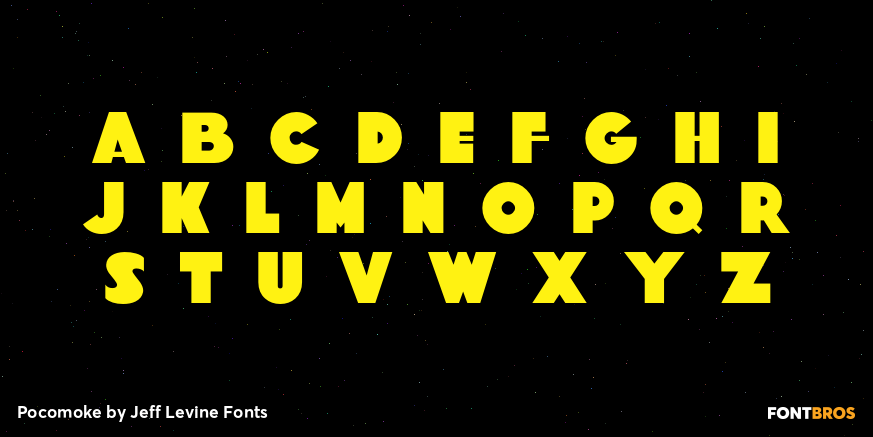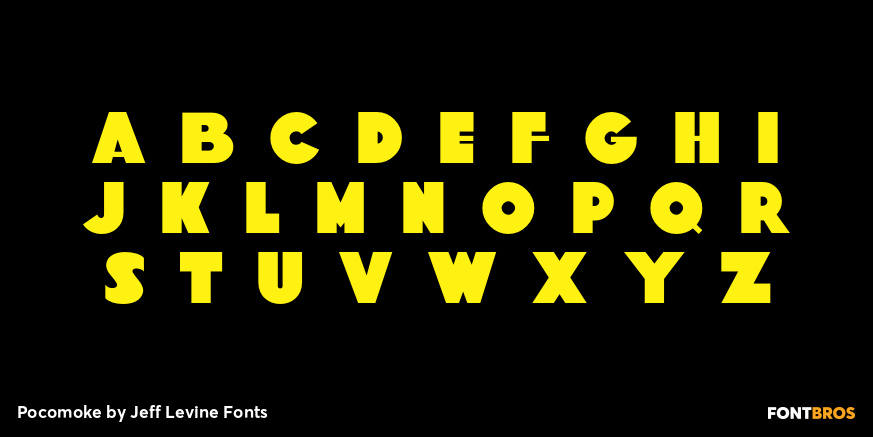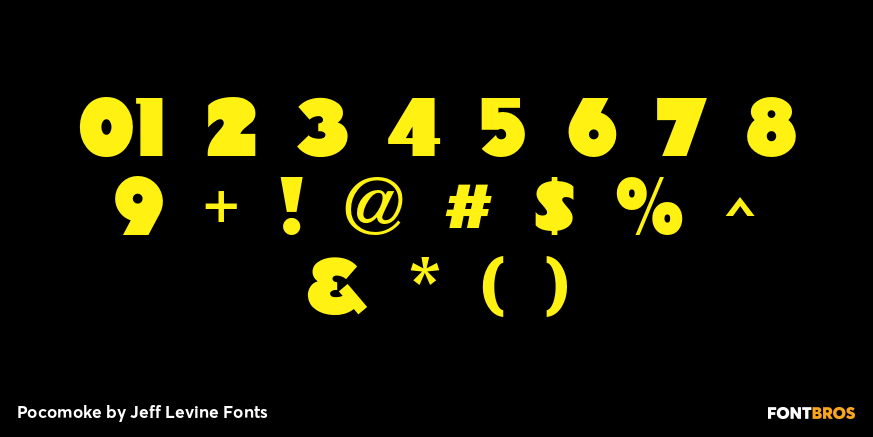
Pocomoke
Two pieces of vintage sheet music ('Honeymoon Hotel' and 'By a Waterfall') from Warner Brothers' 1933 musical 'Footlight Parade' featured a hand-lettered bold alphabet with a touch of the 1930s Art Deco influence.
These song sheets served as the basis for Pocomoke JNL. As informal and casual as the design is, its strength is in the boldness of the letter forms (which showcases the era of pen-and-ink display lettering).